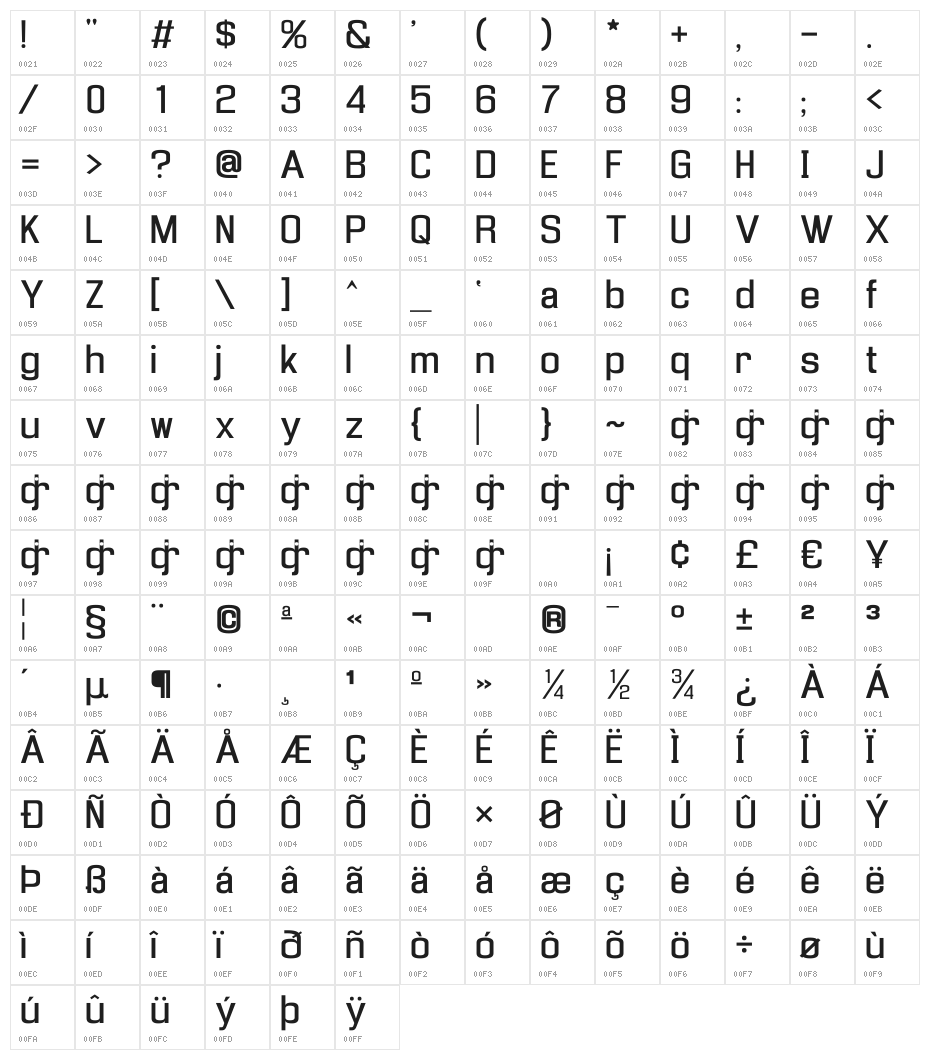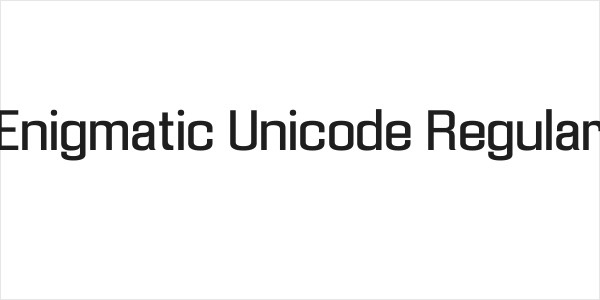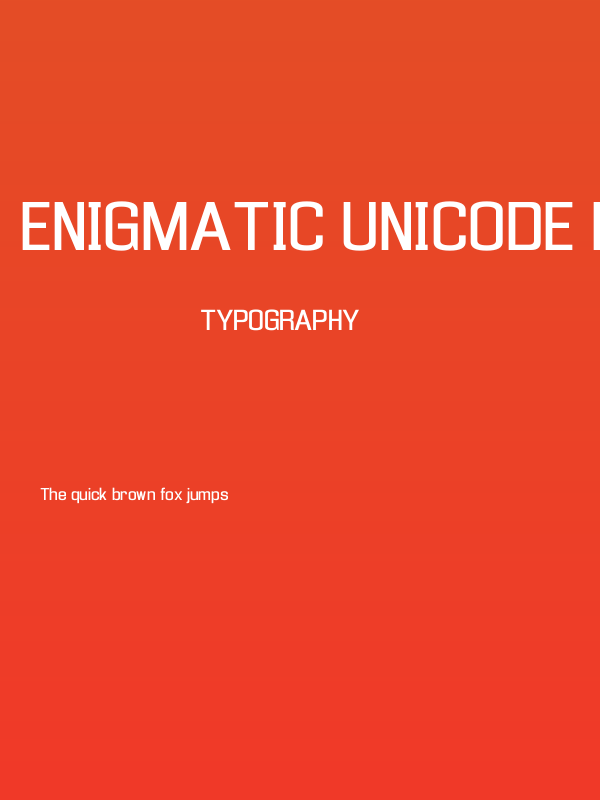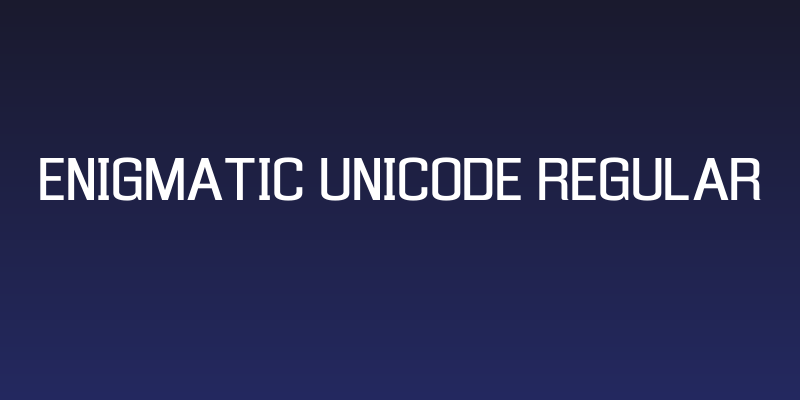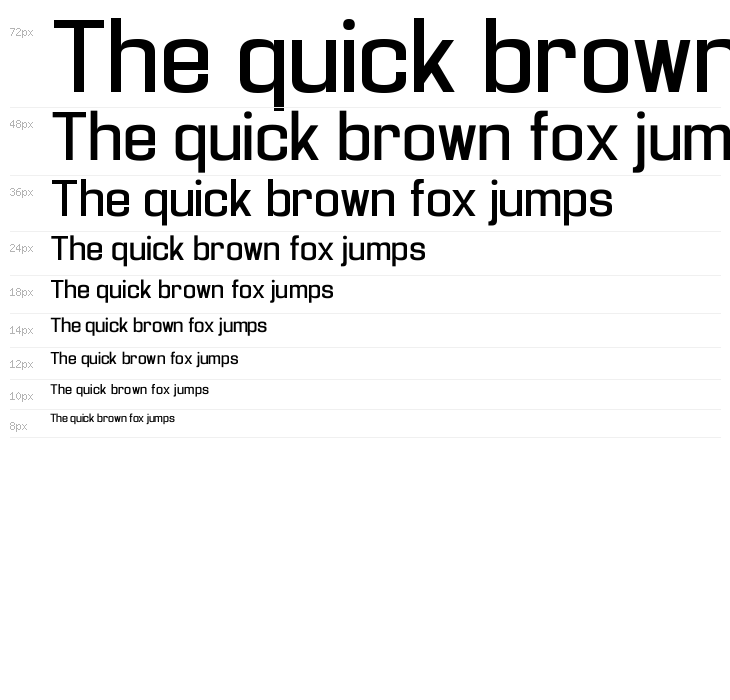
Enigmatic Unicode Regular Font
Enigmatic Unicode Regular Description
This font exhibits a clean and modern aesthetic with a geometric structure. The characters are uniform and well-proportioned, featuring straight lines and sharp angles that contribute to its contemporary feel. The uppercase and lowercase letters maintain a consistent height, while the numerals are clear and legible. Special characters are distinct and align well with the overall design. The font's simplicity and clarity make it versatile for various design applications.
| Proposed Projects | Ideal for branding, advertising, web design, and editorial layouts due to its clarity and modern appeal. |